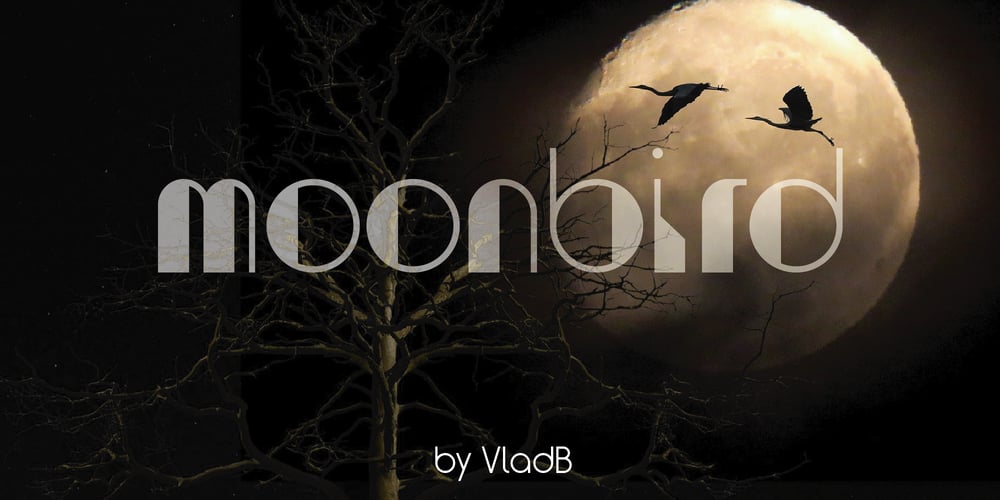
Moonbird Font Family was designed by Volodymyr Berla and published by VladB. Moonbird contains 8 styles and family package options. Moonbird is a modern sans serif font, includes upper and lower case characters, Latin, Cyrillic, Latin Eastern Europe, Turkish, Baltic and other.Moonbird family consists of 8 fonts, divided into 2 subgroups (according to the type of style – St, Op), and have the 4 types of thickness in each subgroup.Moonbird fonts will be useful in developing a brand, creating posters and other graphic products, and for word processing.